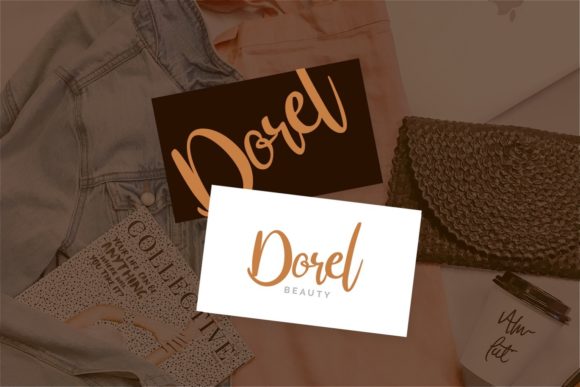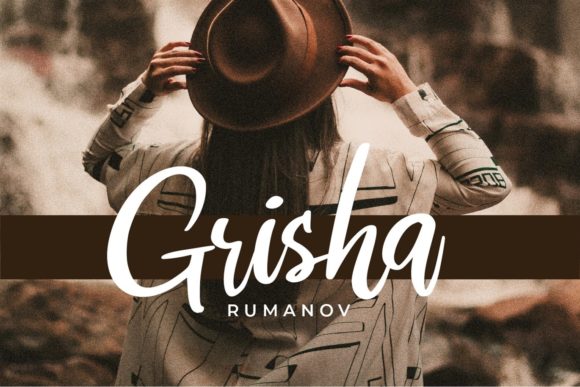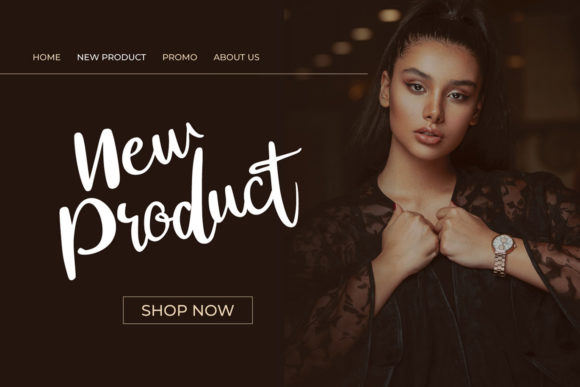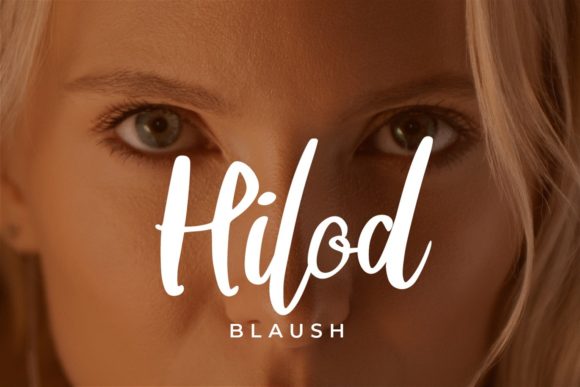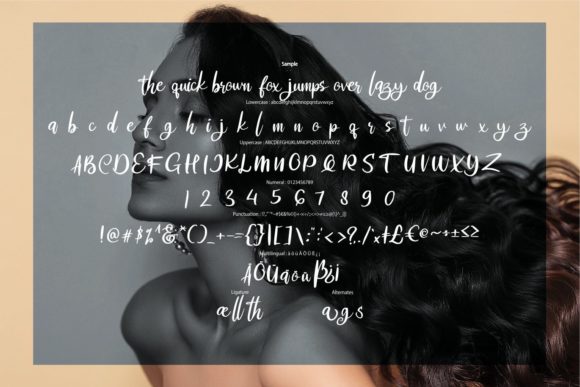
Discover the Elegance of Alrobe Script Font: Elevate Your Designs with Timeless Style
Are you on the hunt for a font that exudes elegance, sophistication, and a touch of personal flair? Look no further than the Alrobe Script Font. This stunning, flowing handwritten font is designed to add a dash of refinement to your favorite projects, making it perfect for designers and crafters alike. With its incredibly distinct and timeless style, Alrobe Script is sure to capture your heart and inspire your creativity.
The Characteristics of Alrobe Script Font
Alrobe Script Font is characterized by its elegant touch, which sets it apart from other fonts in its category. Its flowing lines and curves create a sense of movement and fluidity, making it ideal for designs that require a touch of dynamism. The font’s unique style is both classic and modern, allowing it to seamlessly integrate into a wide range of projects, from traditional wedding invitations to modern digital marketing materials.
Why Choose Alrobe Script Font?
So, what makes Alrobe Script Font a top choice among designers and crafters? Here are just a few reasons why this font stands out:
- Elegant and Sophisticated: Alrobe Script Font boasts an undeniable air of elegance, making it perfect for projects that require a touch of refinement and sophistication.
- Unique and Distinct: With its flowing lines and curves, Alrobe Script Font has a unique style that sets it apart from other fonts, ensuring your designs will stand out from the crowd.
- Timeless Appeal: Unlike trendy fonts that quickly go out of style, Alrobe Script Font has a timeless quality that ensures your designs will remain stylish for years to come.
- Versatile: Whether you’re working on a traditional print project or a modern digital design, Alrobe Script Font is versatile enough to adapt to any style or format.
Alrobe Script Font is incredibly versatile, making it suitable for a wide range of projects, including:
- Wedding Invitations and Stationery: Add a touch of romance and elegance to your wedding invitations, save-the-dates, and other stationery with Alrobe Script Font.
- Branding and Packaging: Elevate your brand with a sophisticated and stylish font that reflects your company’s values and personality.
- Digital Marketing Materials: Make your digital marketing materials stand out with a font that exudes elegance and refinement.
- Art and Craft Projects: Add a personal touch to your art and craft projects, such as handmade cards, scrapbooking, and other paper crafts.
Tips for Using Alrobe Script Font
To get the most out of Alrobe Script Font, here are a few tips to keep in mind:
- Use it Sparingly: While Alrobe Script Font is beautiful, it’s best used sparingly to avoid overwhelming your design. Use it for headings, titles, or key phrases to add emphasis and elegance.
- Pair it with Other Fonts: Experiment with pairing Alrobe Script Font with other fonts to create a unique and visually appealing design.
- Adjust the Size and Color: Play around with different sizes and colors to find the perfect combination that complements your design.
In conclusion, Alrobe Script Font is a stunning, elegant, and timeless font that’s perfect for designers and crafters looking to add a touch of sophistication to their projects. With its unique style, versatility, and timeless appeal, it’s no wonder that Alrobe Script Font is quickly becoming a favorite among creative professionals. So why wait? Fall in love with Alrobe Script Font and use it to create spectacular designs that will leave a lasting impression!